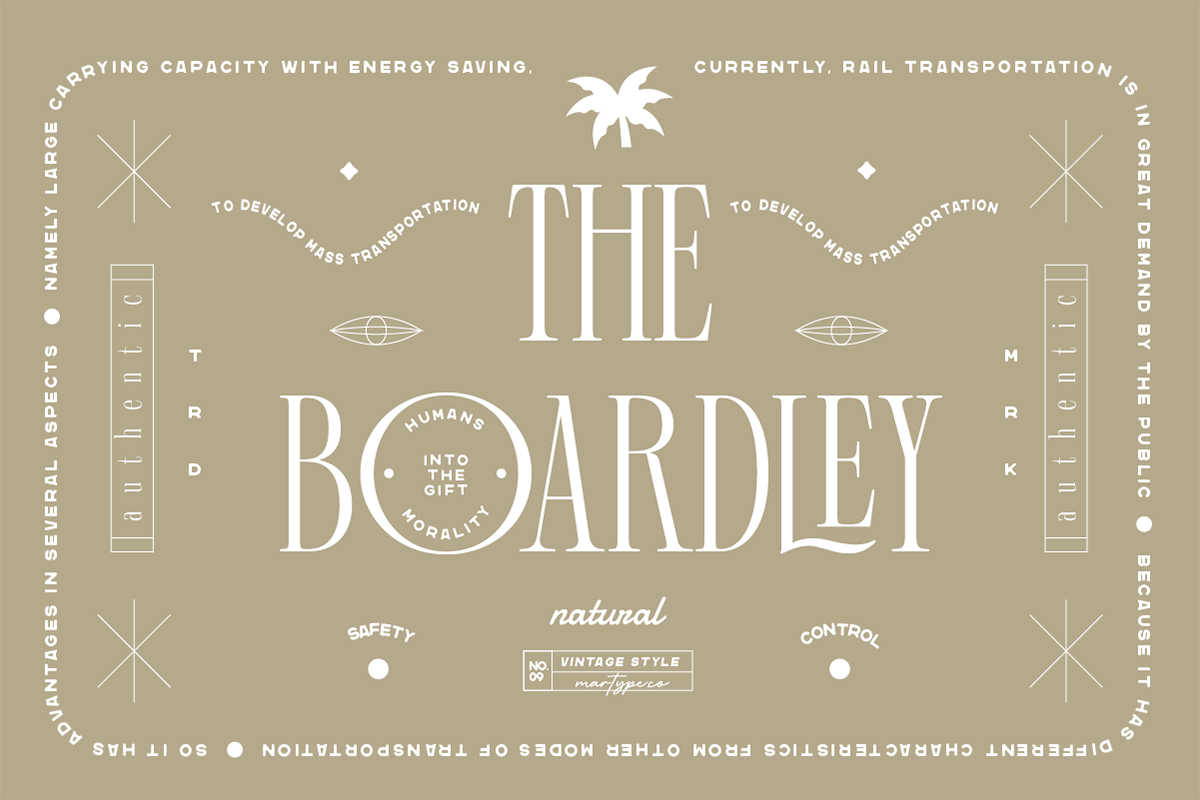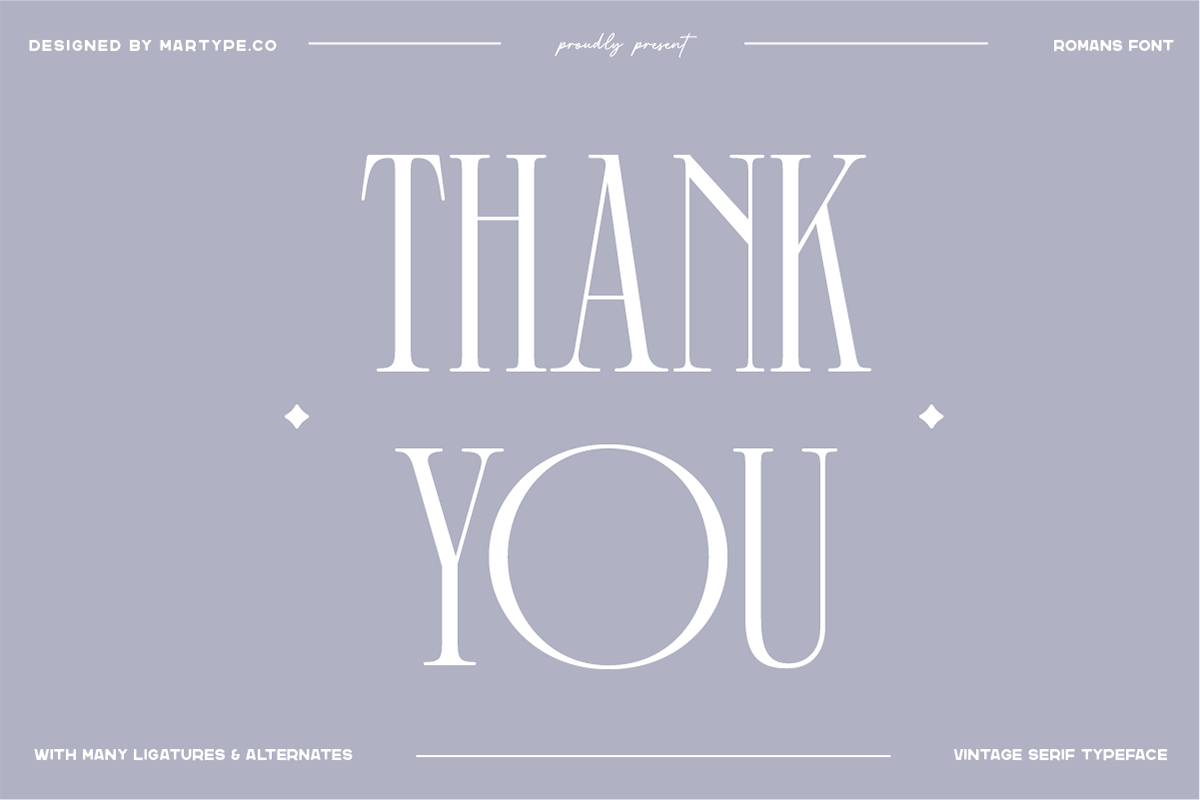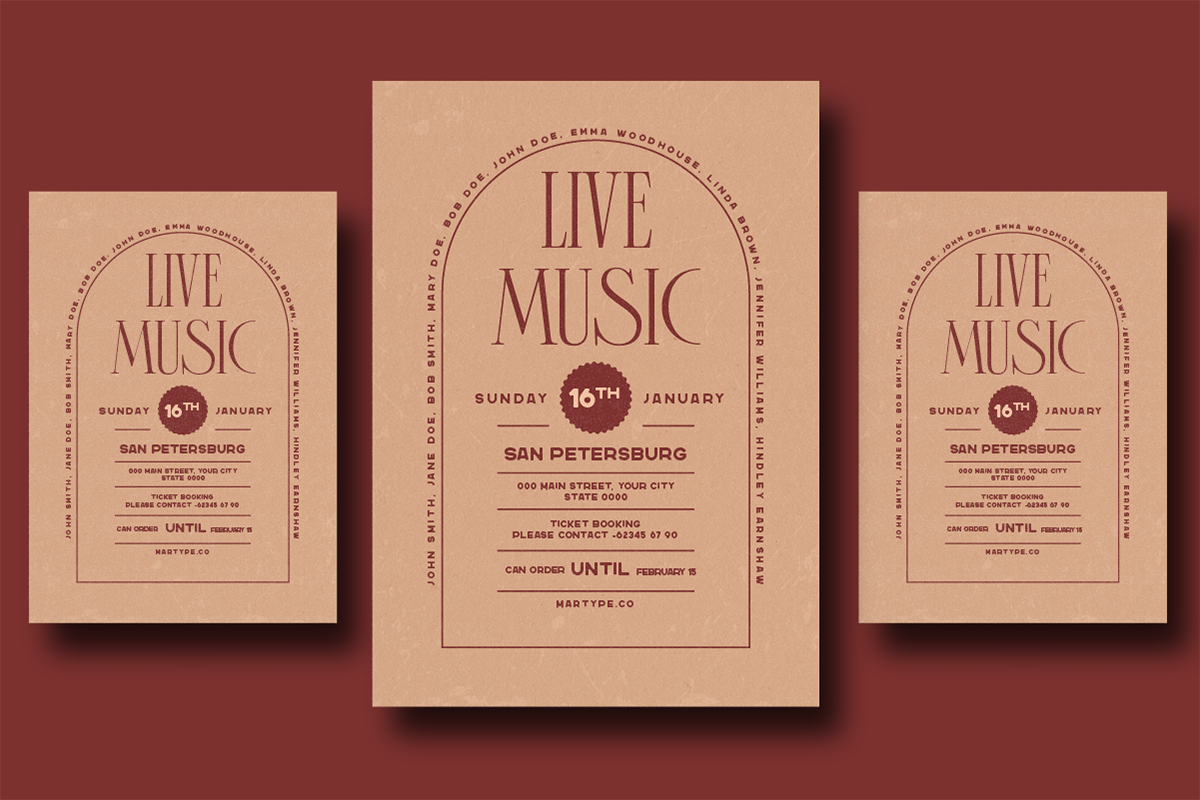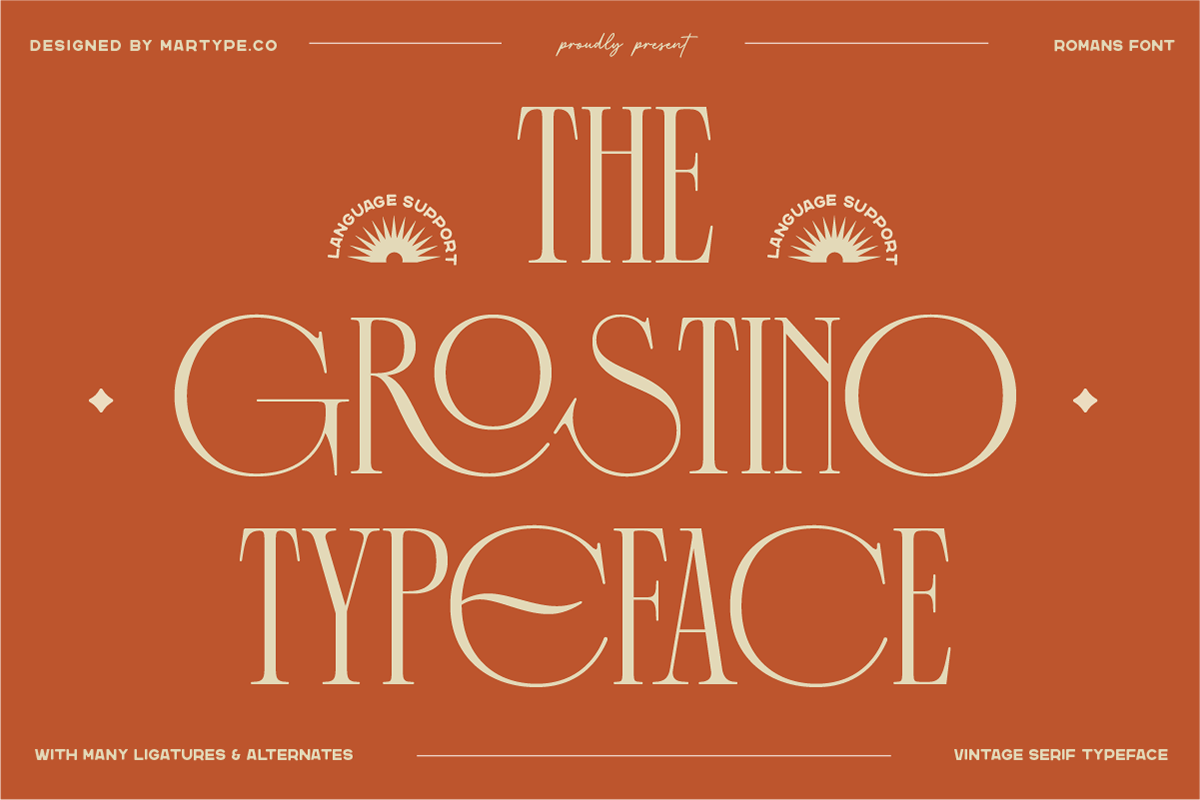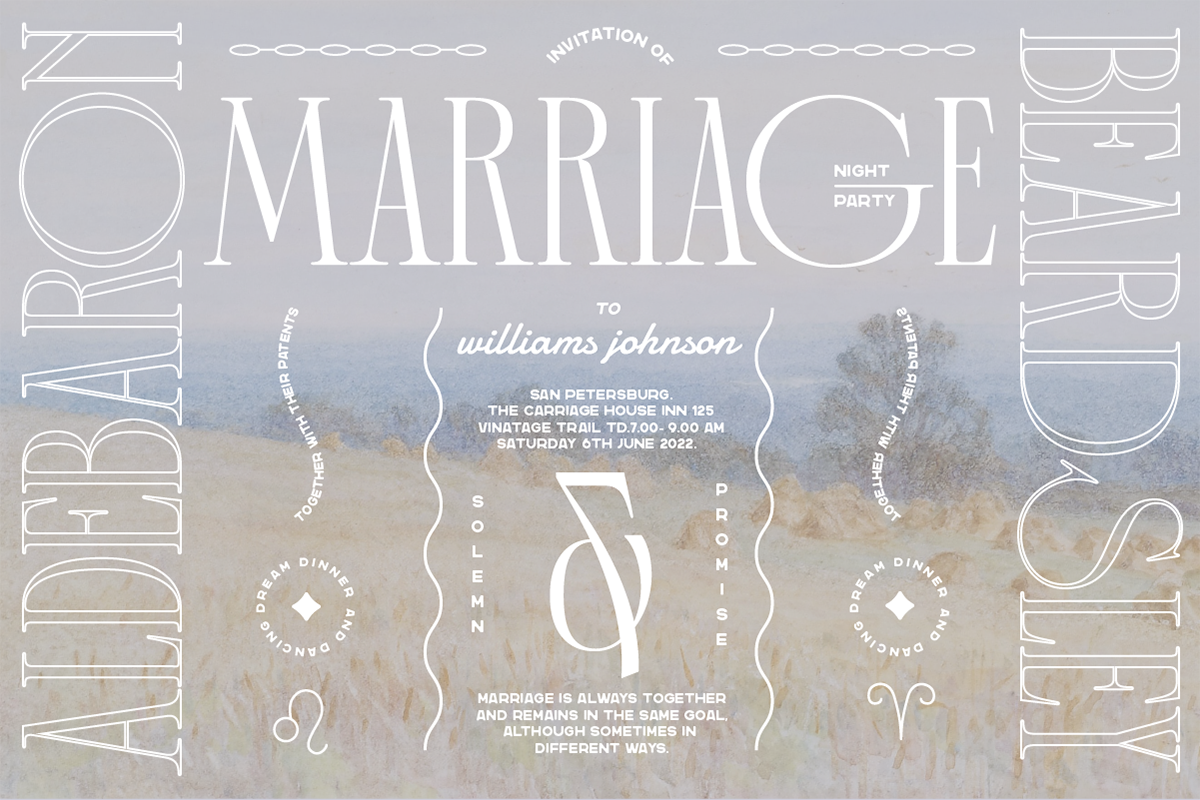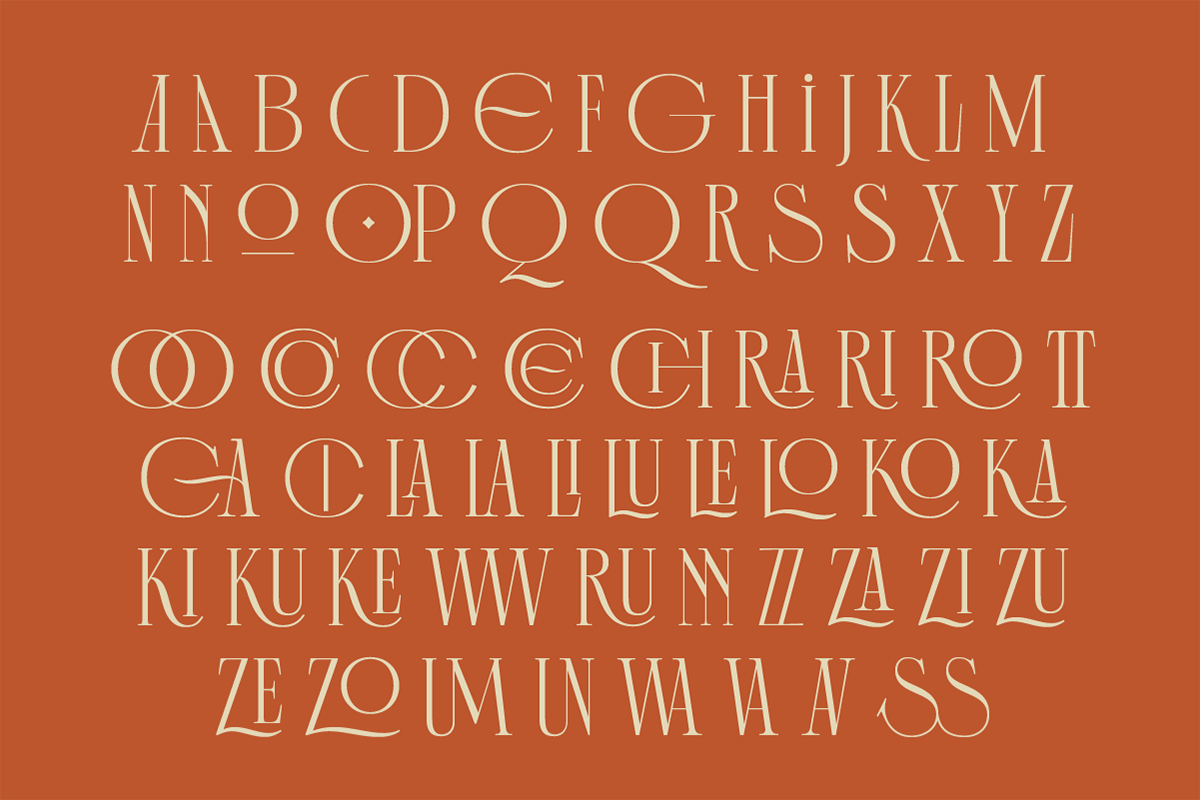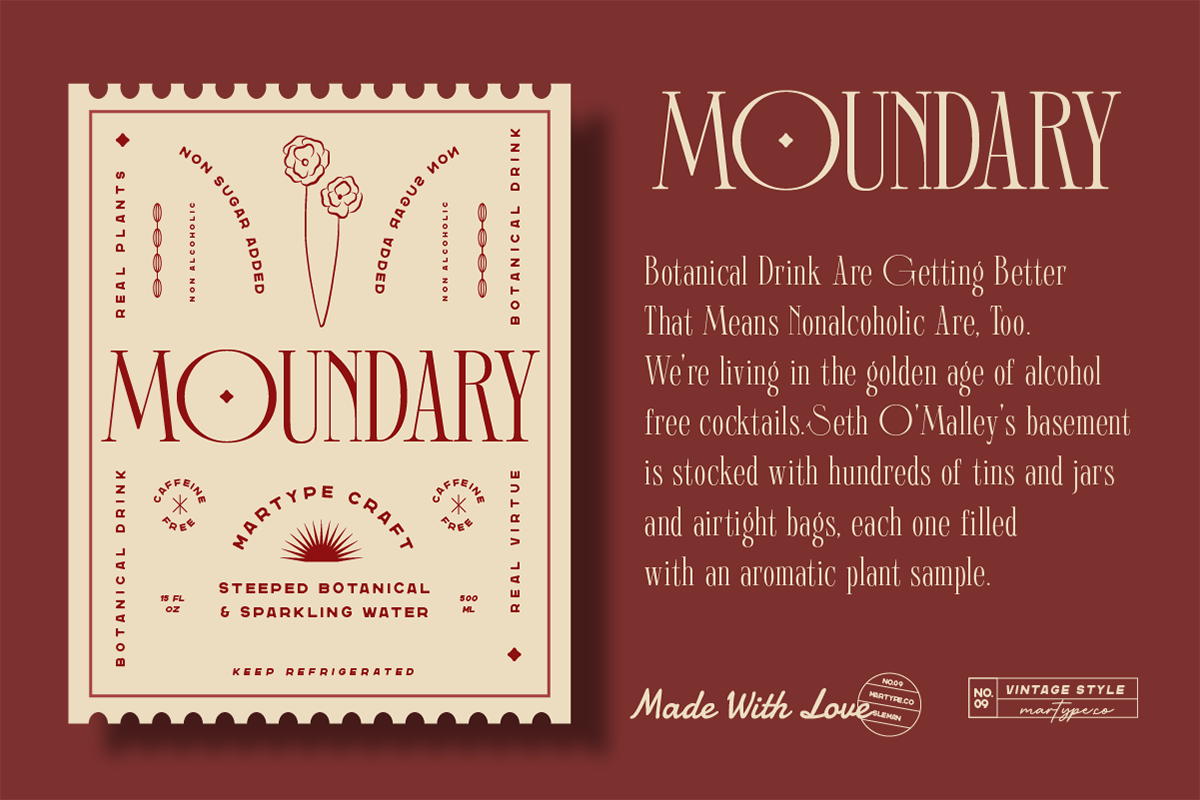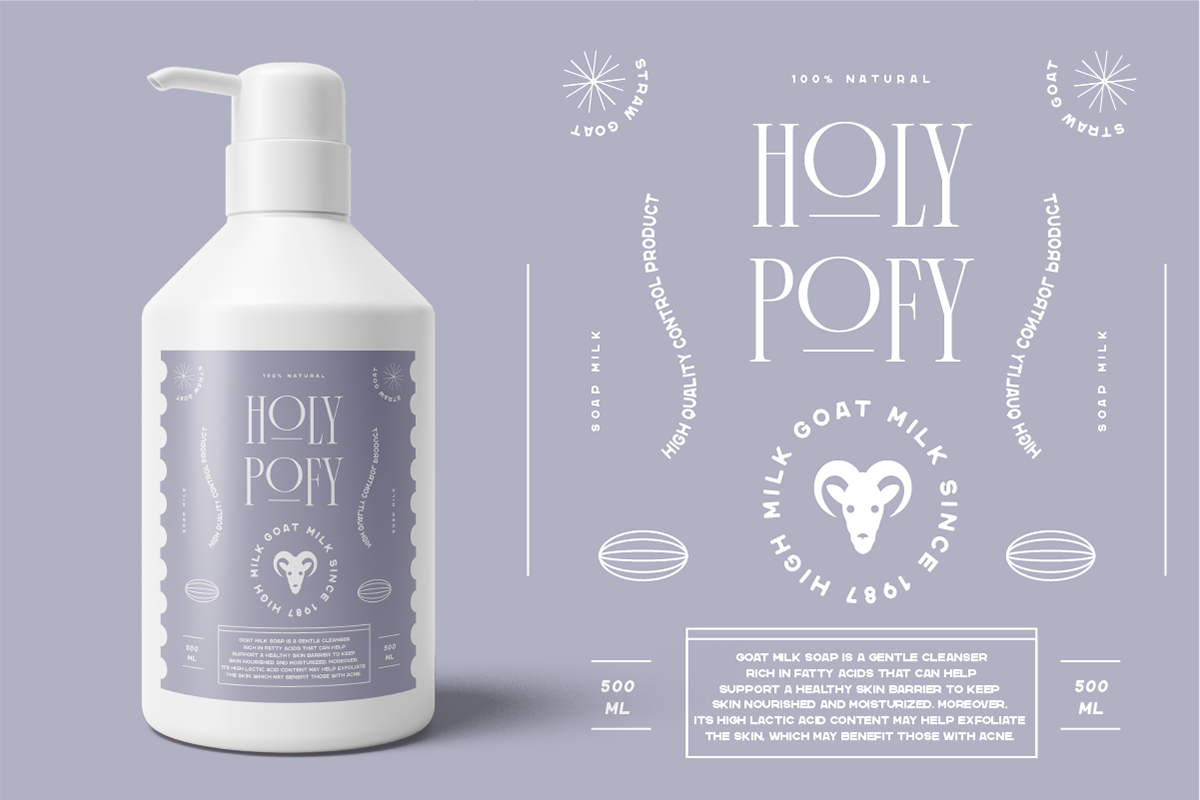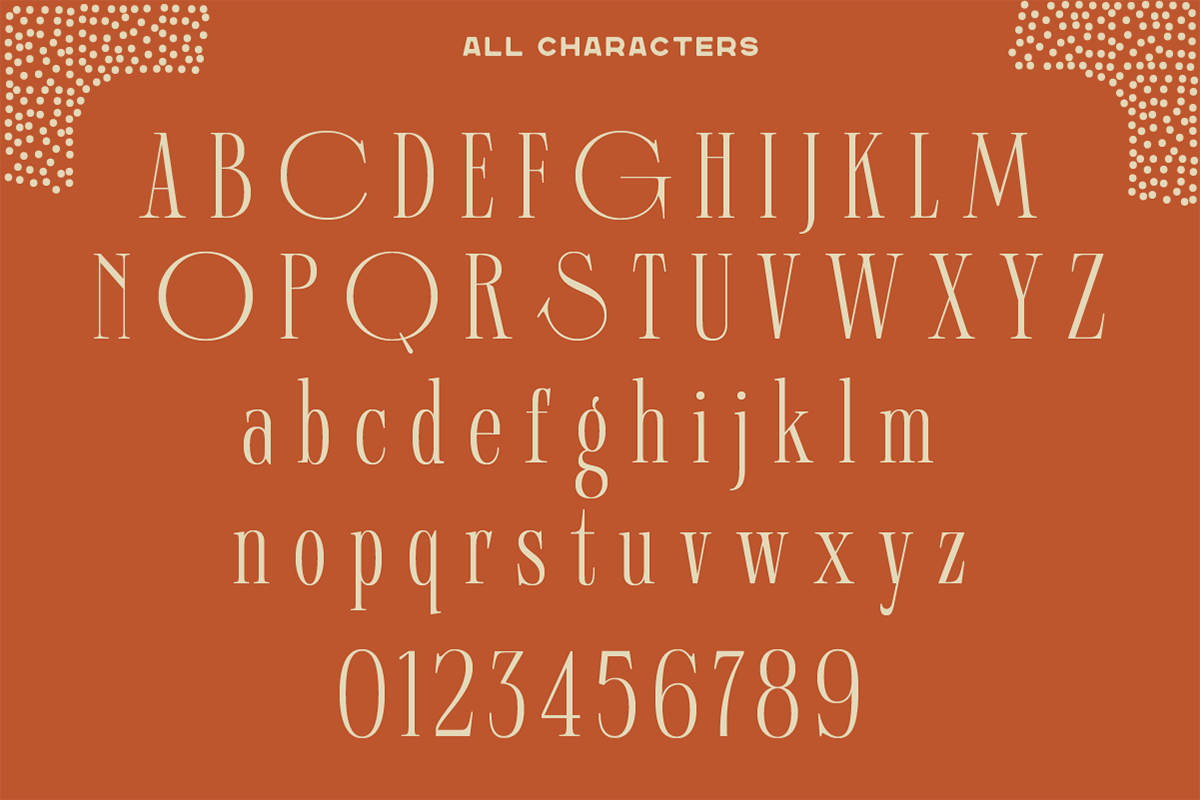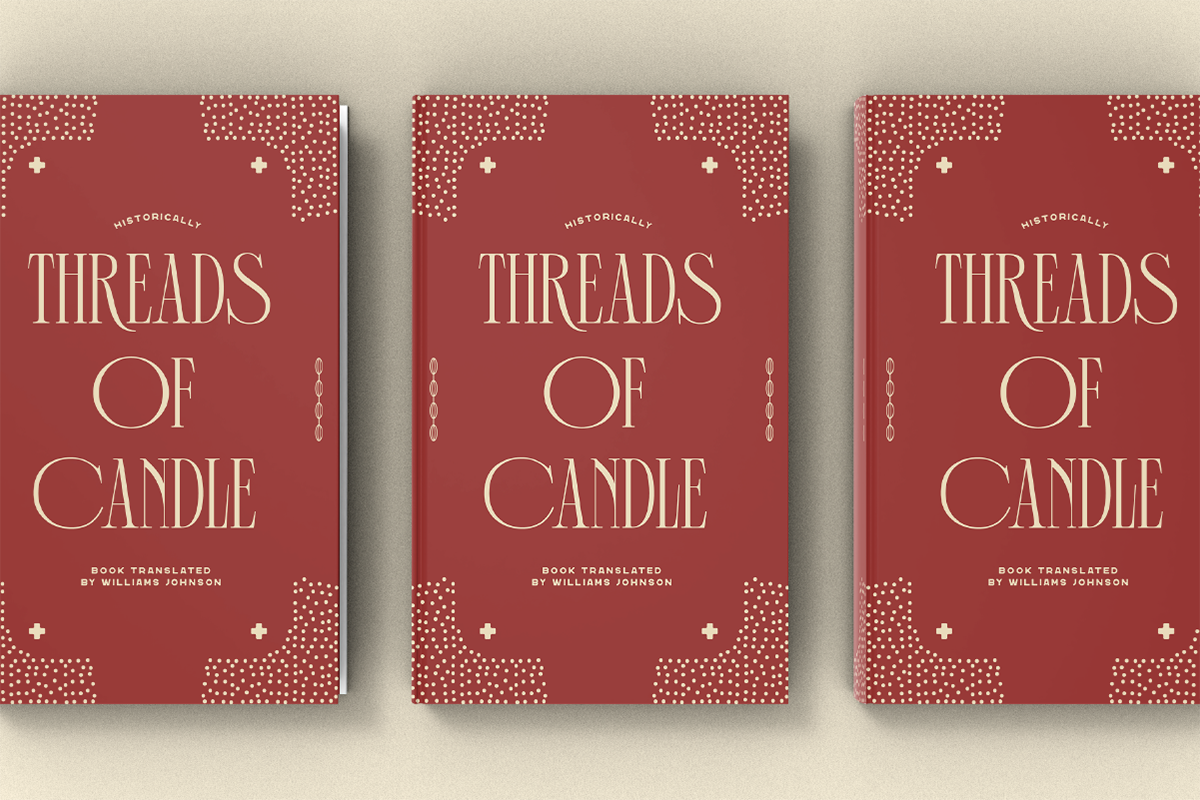
The Grostino Typeface
Grostino Is a condensed serif font that comes with tall style for display purposes, also suitable for a minimalist, chic, branding, packaging, and merch design to boost your design exploration.
Multilingual Support support many different languages 20+